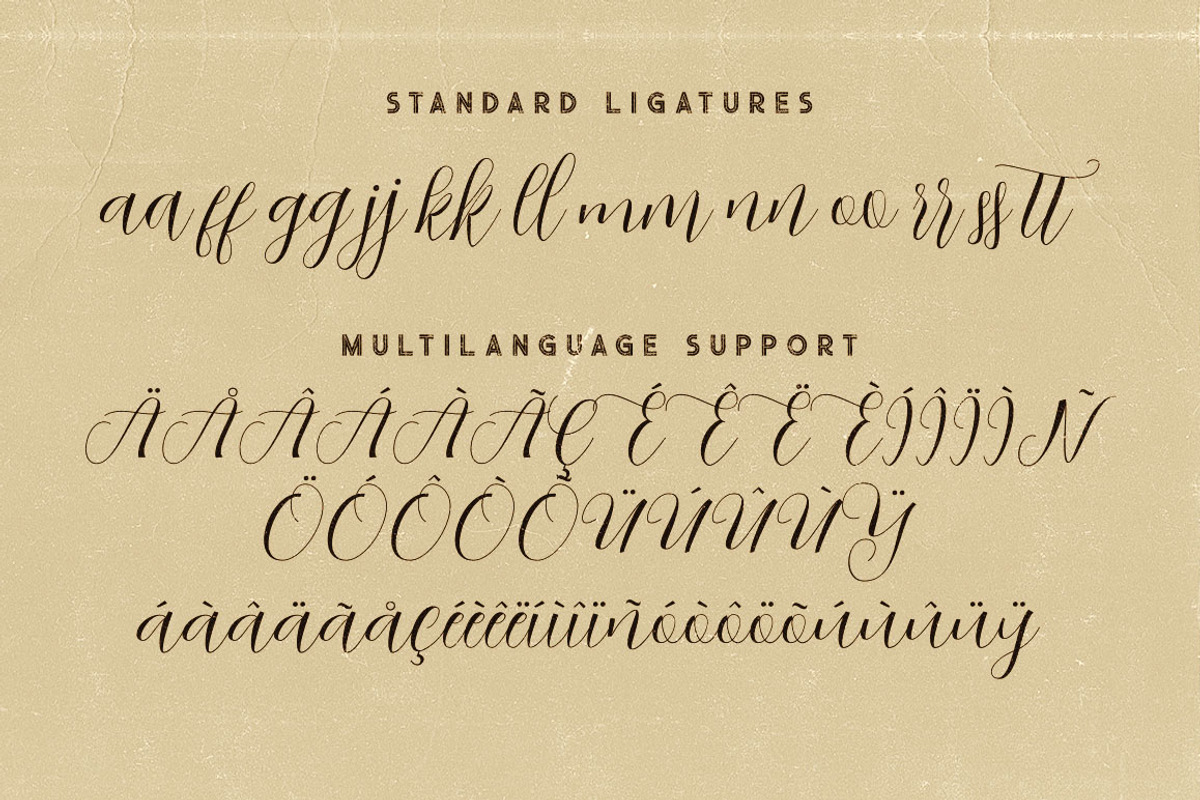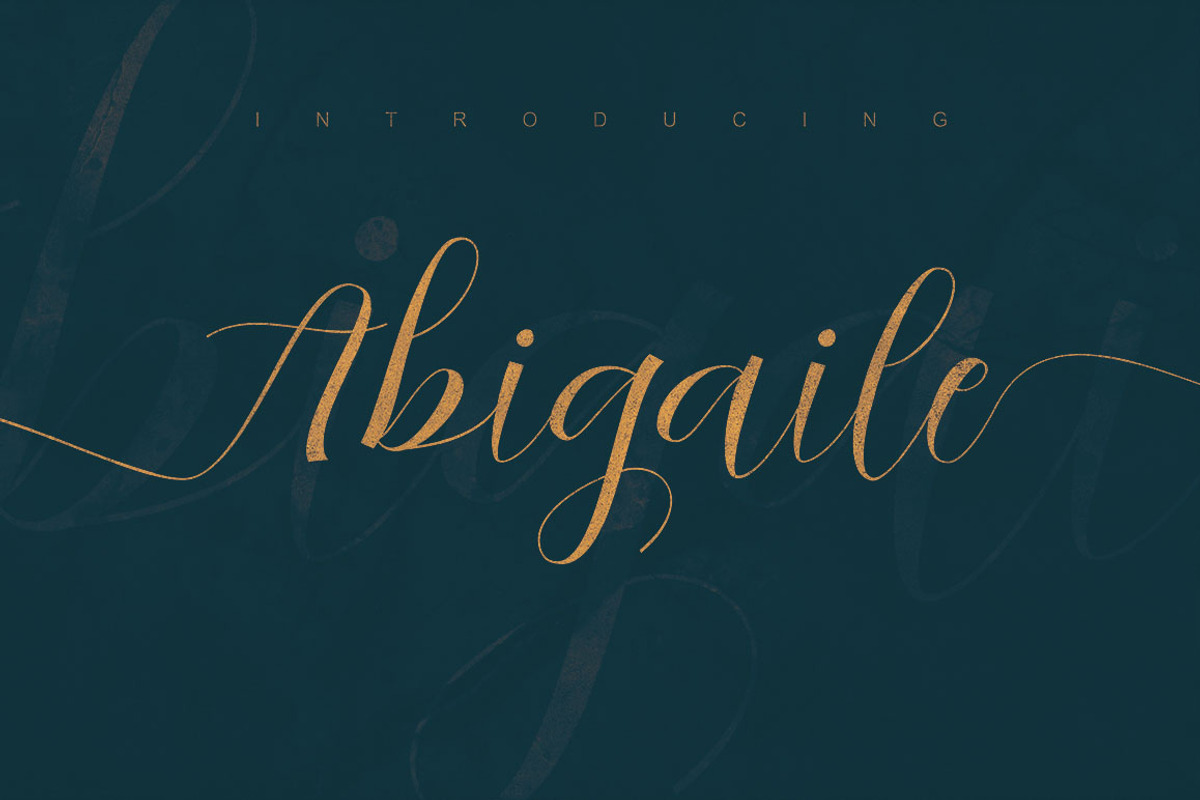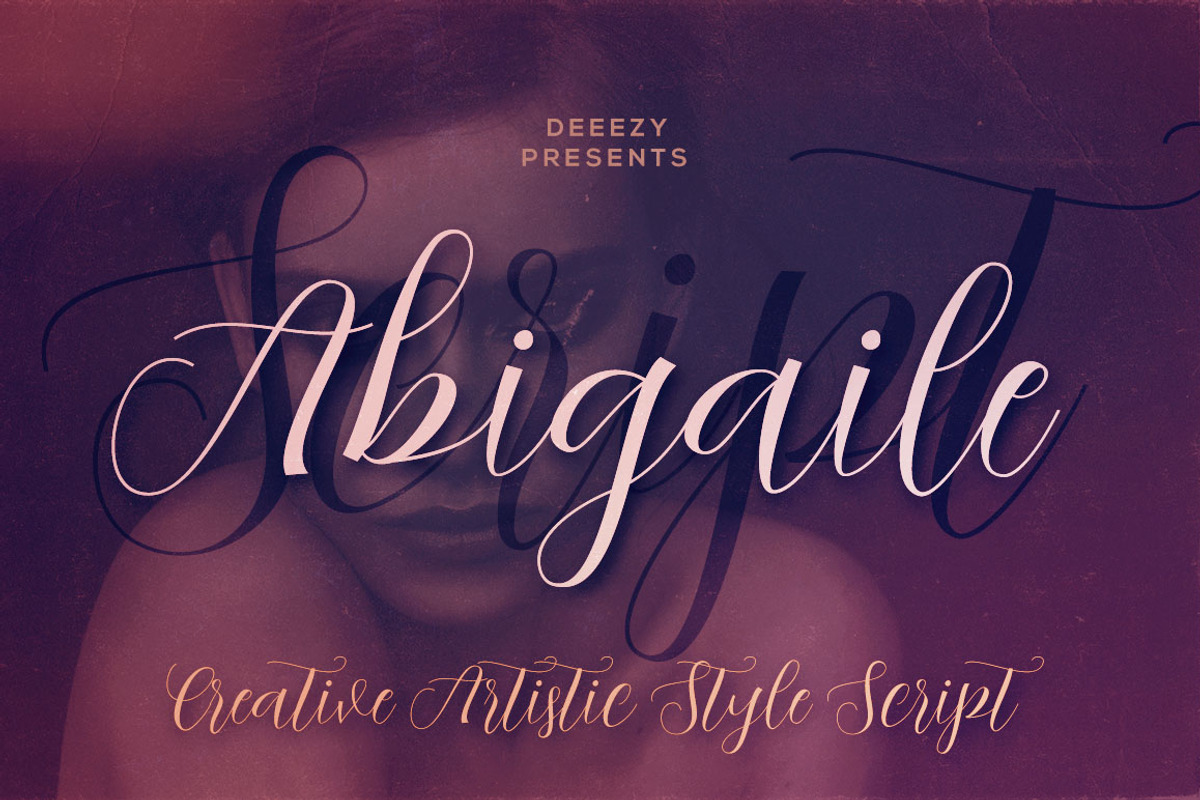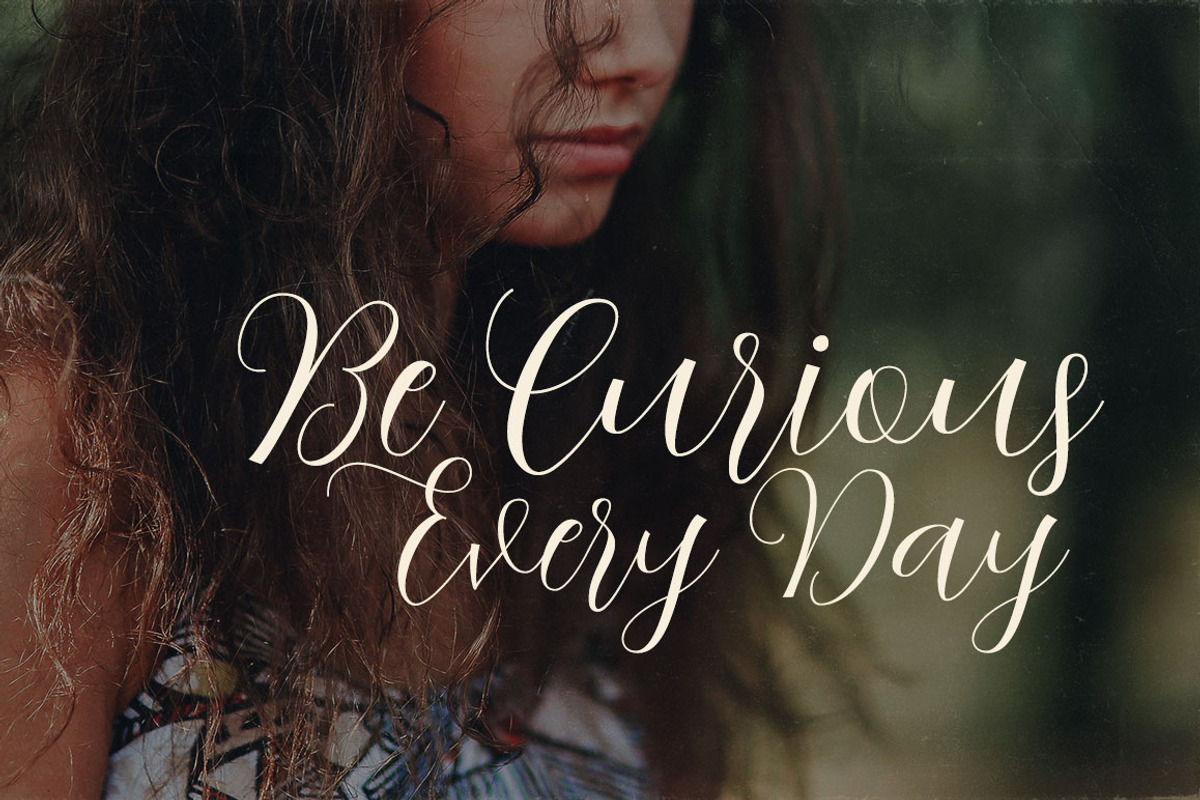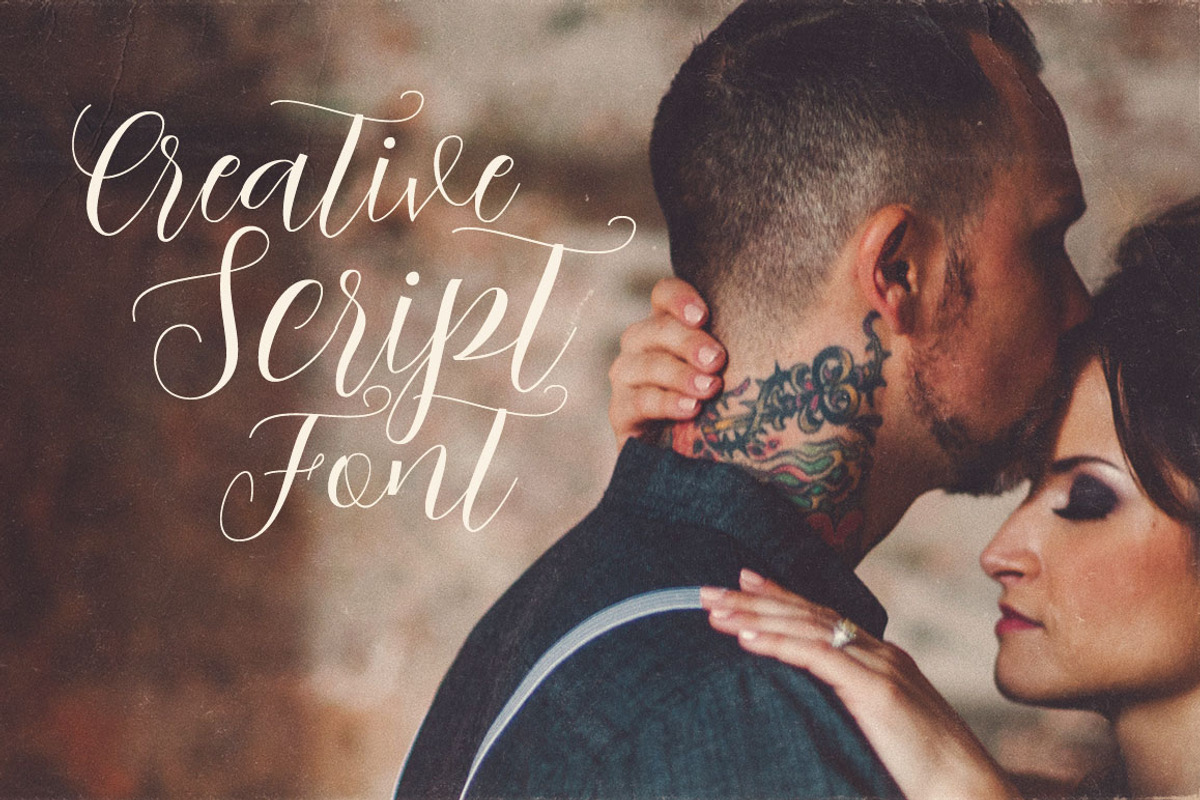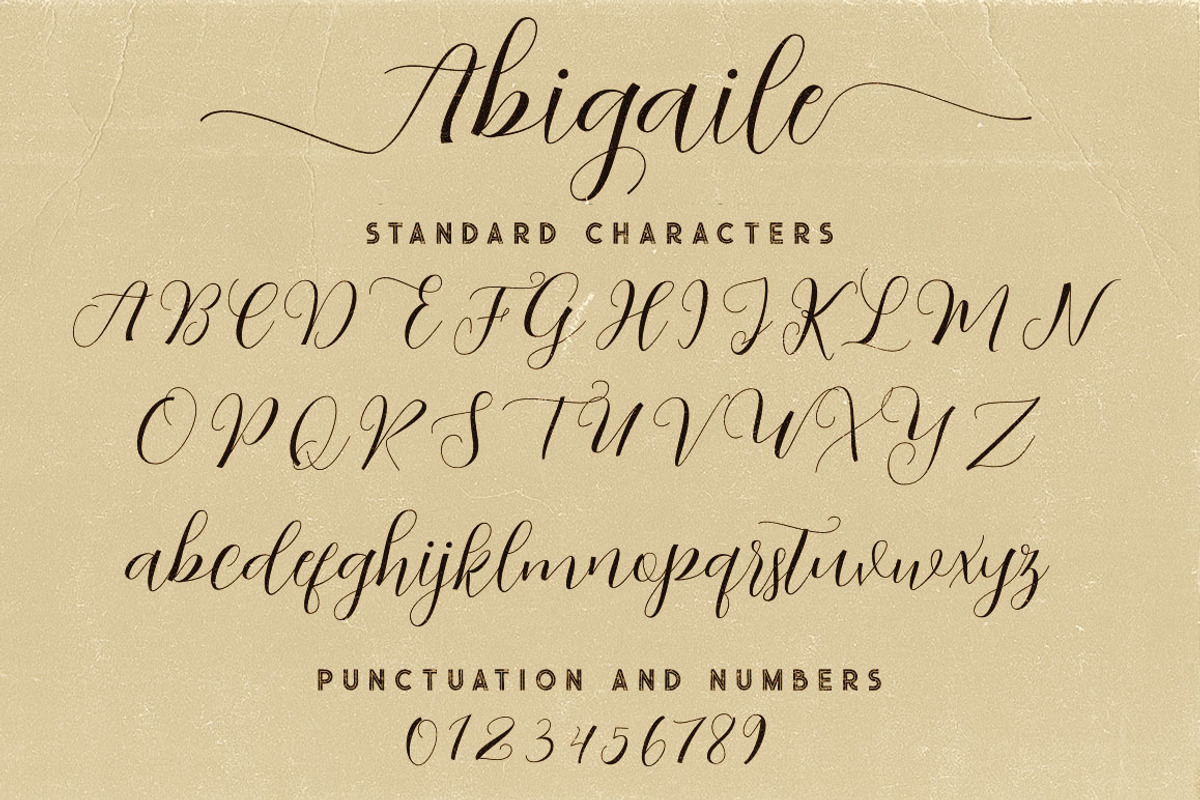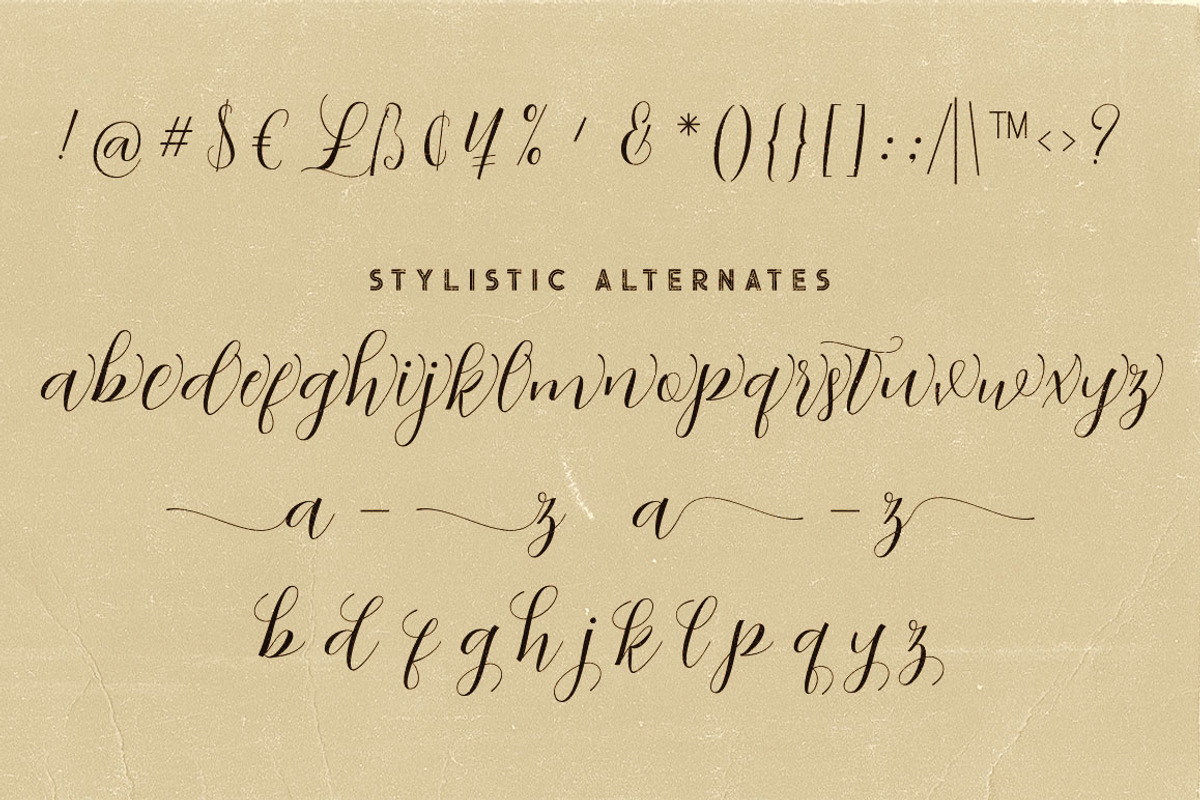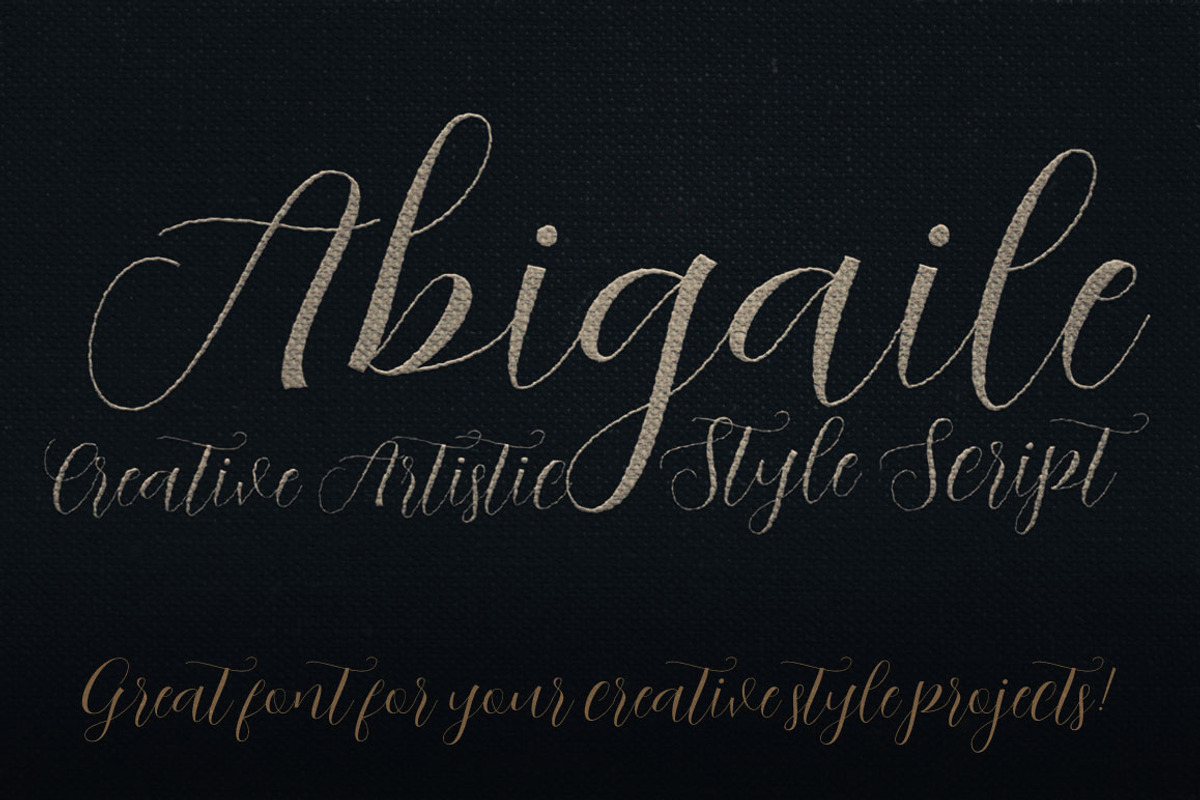
Abigaile Script Font
Thin line and handwritten or dancing baseline style script font for your new projects. With multi language support and lot of stylistic alternates. Enjoy ;)
- With multi language support and lot of stylistic alternates.